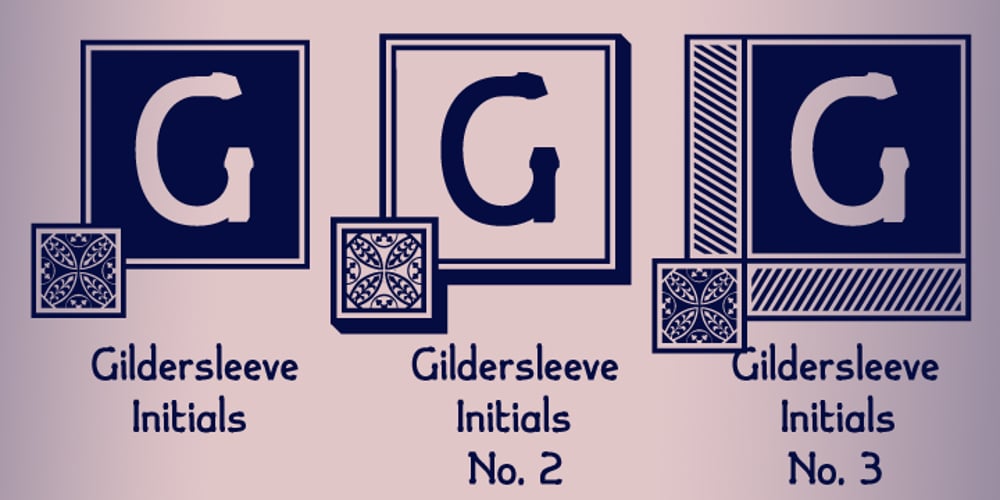
Gildersleeve
Gildersleeve font
Gildersleeve Font Family was designed by Paul James Lloyd and published by Greater Albion Typefounders. Gildersleeve contains 7 styles and family package options. Gildersleeve evokes the spirit of the Arts and Crafts movement of the 1920s. Think of a hand-cut Roman display face, with loving care lavished over each serif and letterform. Gildersleeve is offerered in the classic combination of a regular face, a bold face, an italic and an italic bold. Any of them are ideal for poster or cover work, as well as for chapter and section headings in a longer document, in combination with a text face such as Vertrina or Clementhorpe Text.